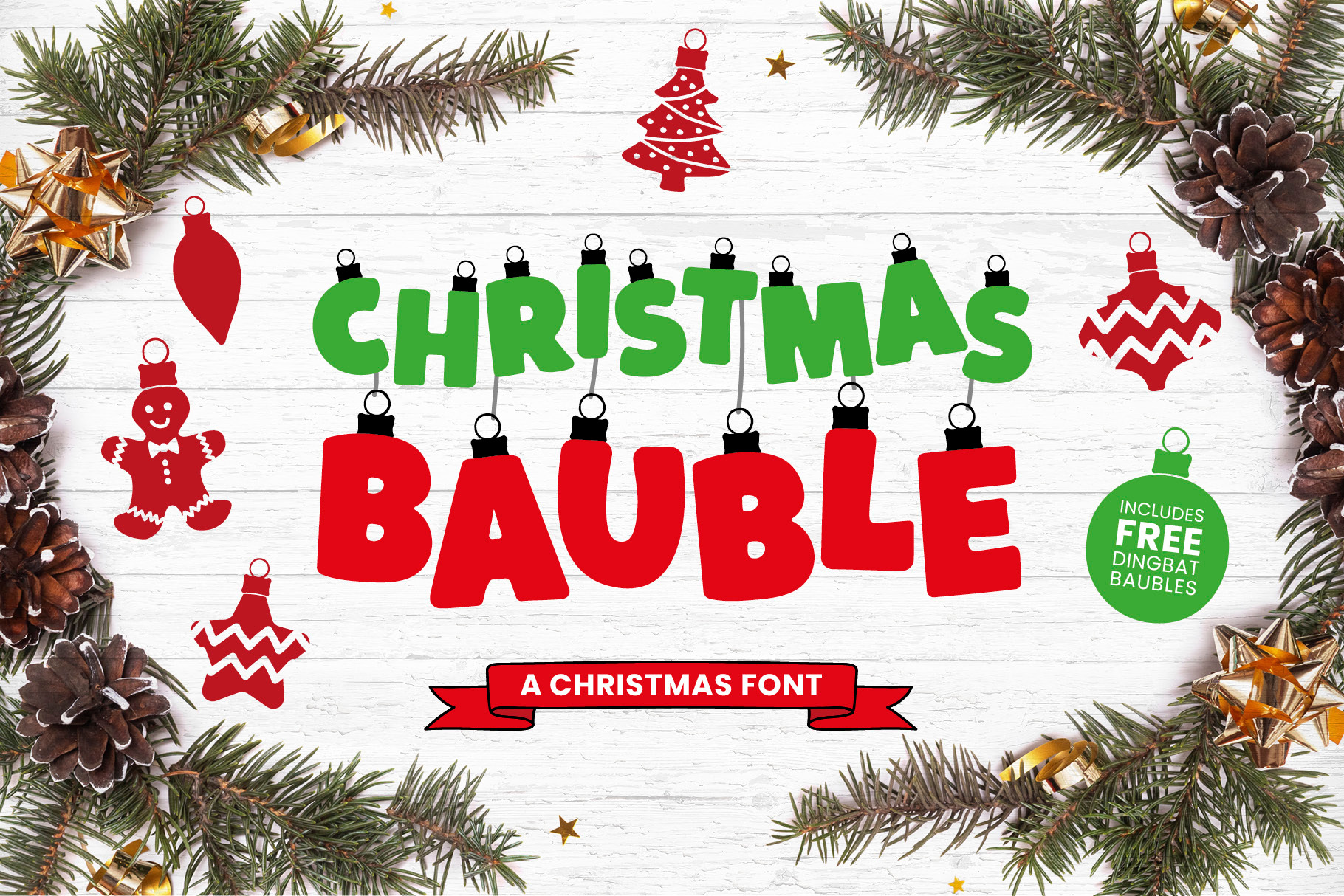
CHRISTMAS BAUBLE | a Festive Font
Christmas Bauble Font – Playful Holiday Ornament Typeface with Dingbats
Add festive flair to your holiday designs with the Christmas Bauble Font—a whimsical, ornament-inspired typeface perfect for Christmas cards, crafts, and seasonal branding.
Font Features: Christmas Bauble: Uppercase letters styled as complete baubles; lowercase letters feature a subtle split between the bauble body and top hook.
Christmas Bauble Parts: Uppercase characters display the bauble's top loop; lowercase characters show the bauble body. Overlay them to customize colors easily.
Christmas Bauble Dingbats: A collection of festive icons, including Christmas trees, gingerbread men, stars, and more.
Design Tips: Simulate hanging ornaments by adding vertical lines above letters. Rotate and stagger letters for a dynamic, tree-like arrangement. Mix and match colors using the Parts font for a vibrant look.
This super fun, and a little bit silly, Christmas Font was created to be used for all your festive projects and designs. Each letter is smooth and round in the style of a Christmas bauble with a small hook at the top. The perfect ornament or decoration for your Christmas design!
The main font is all in one (uppercase) with a small gap between top and bottom sections of the baubles in the lowercase option. If you can not split the elements in your software, you can use the Christmas Bauble Parts font. This has the top loop section separated (as the uppercase letters) with the bottom letter bauble section in lowercase. This allows you to use different colors for the top and bottom sections of the bauble quickly and easily!
To create that hanging feeling, try adding simple black, grey or colored thread lines! Rotate the letters individually and move up and down slightly to help achieve a fantastic seasonal Christmas Tree 'bauble' or ornament effect!
This fun Christmas Font includes loads of variations and extras as seen in the preview images.
Christmas Bauble - this comprises of complete shapes (uppercase) and with a slight split between bauble letters and bauble top 'crown' (lowercase)
Christmas Bauble Parts - uppercase shows top and loop only and lowercase shows letter bauble (overlay these to create different colors for top and bottom of bauble quickly!)
Christmas Bauble Dingbats - a selection of bauble shapes and patterns including Christmas Tree Bauble, Christmas Arabesque Baubles, a Gingerbread Man Bauble and a Christmas Star Bauble.
This is a display font and contains no lowercase letters and no multilingual characters. Uppercase letters only. (...and plenty of bauble shapes!)